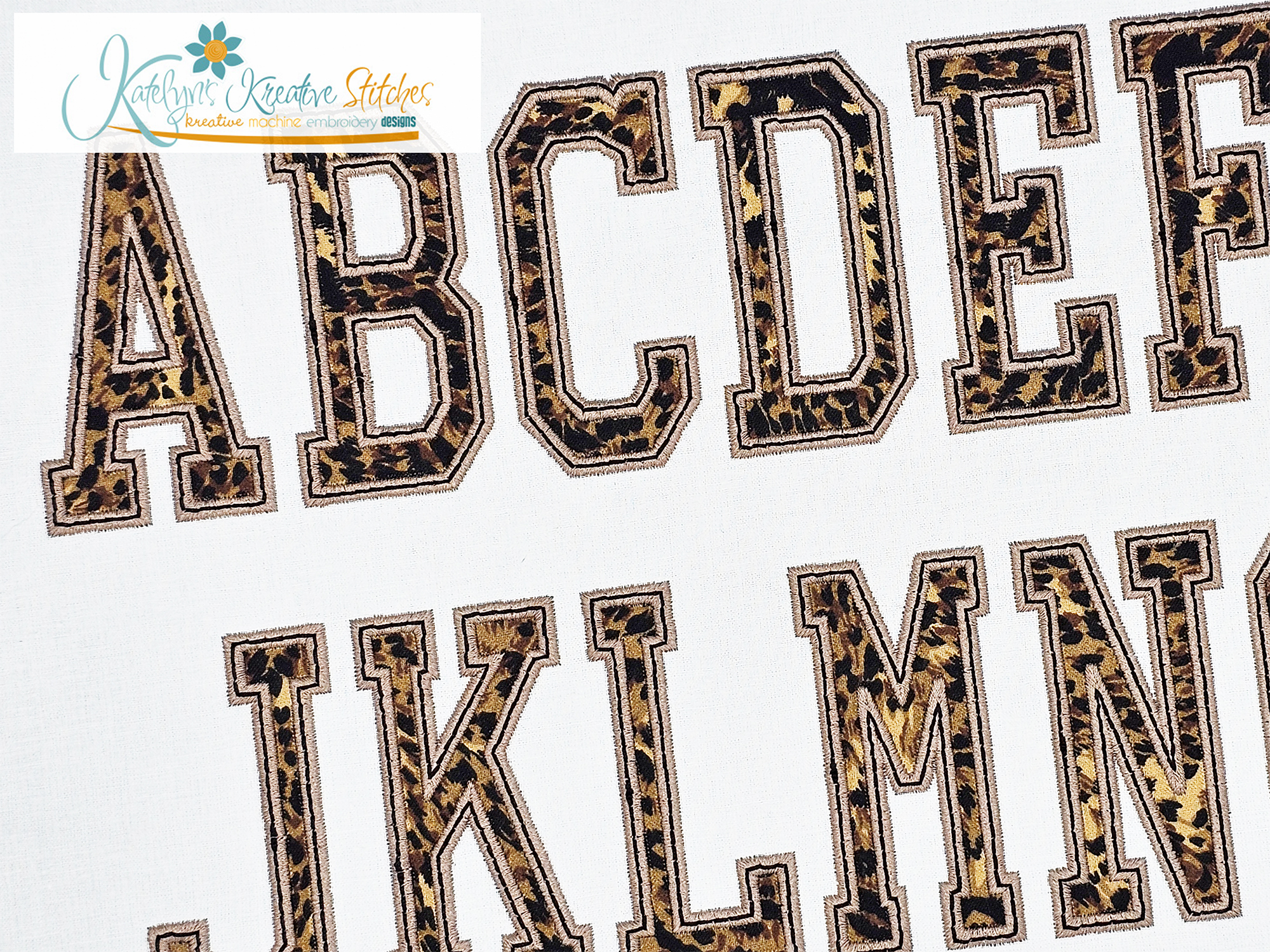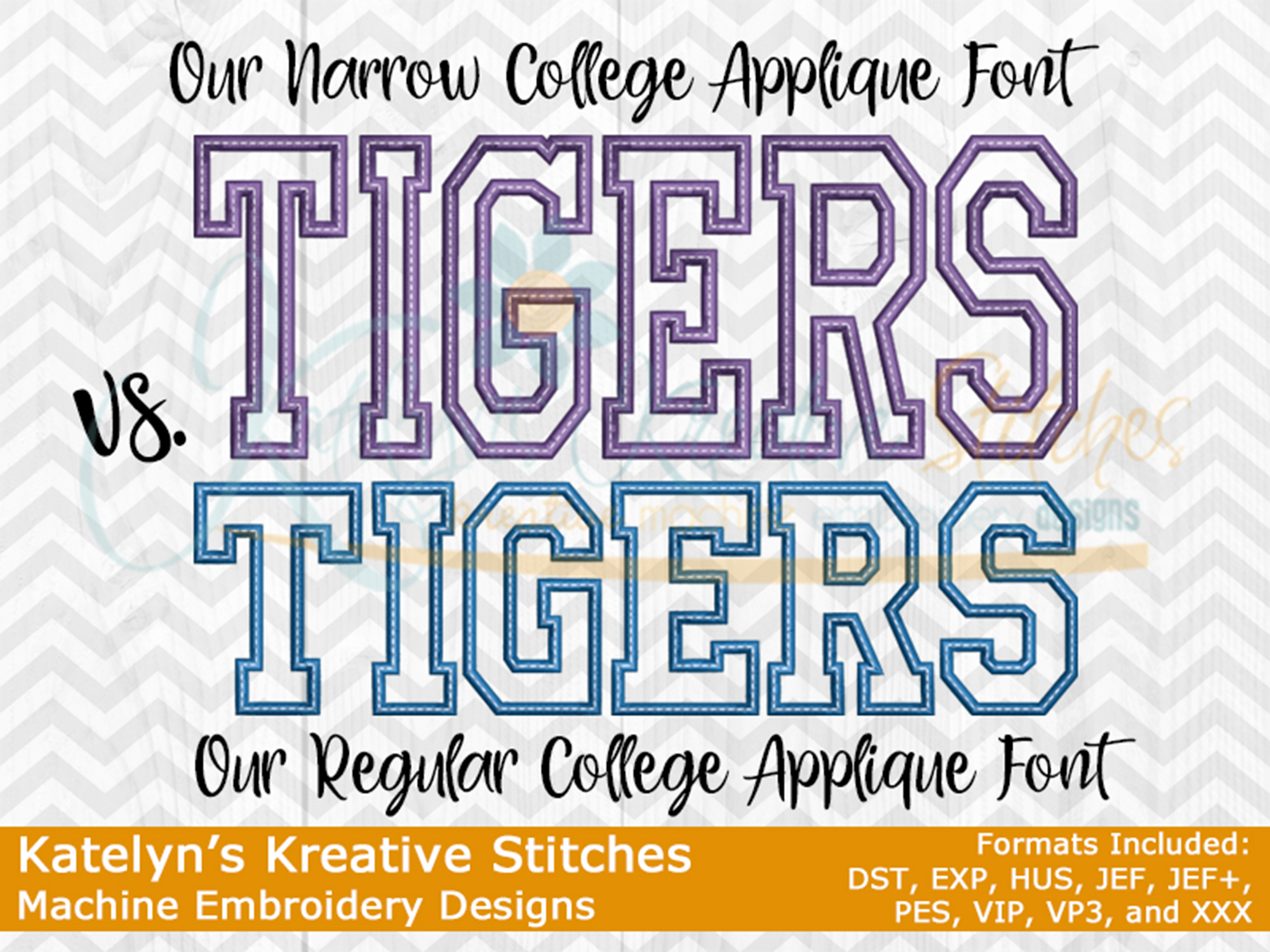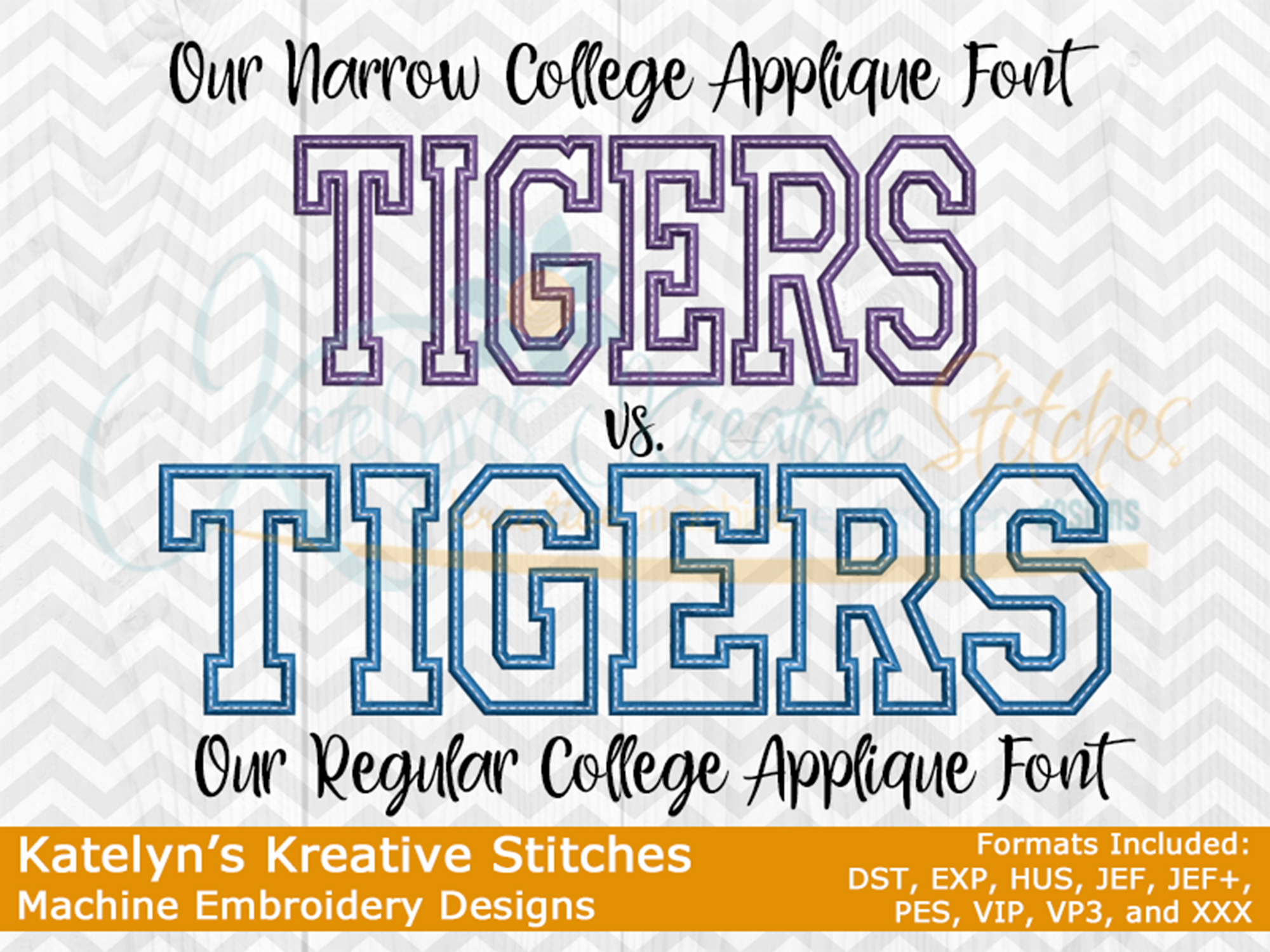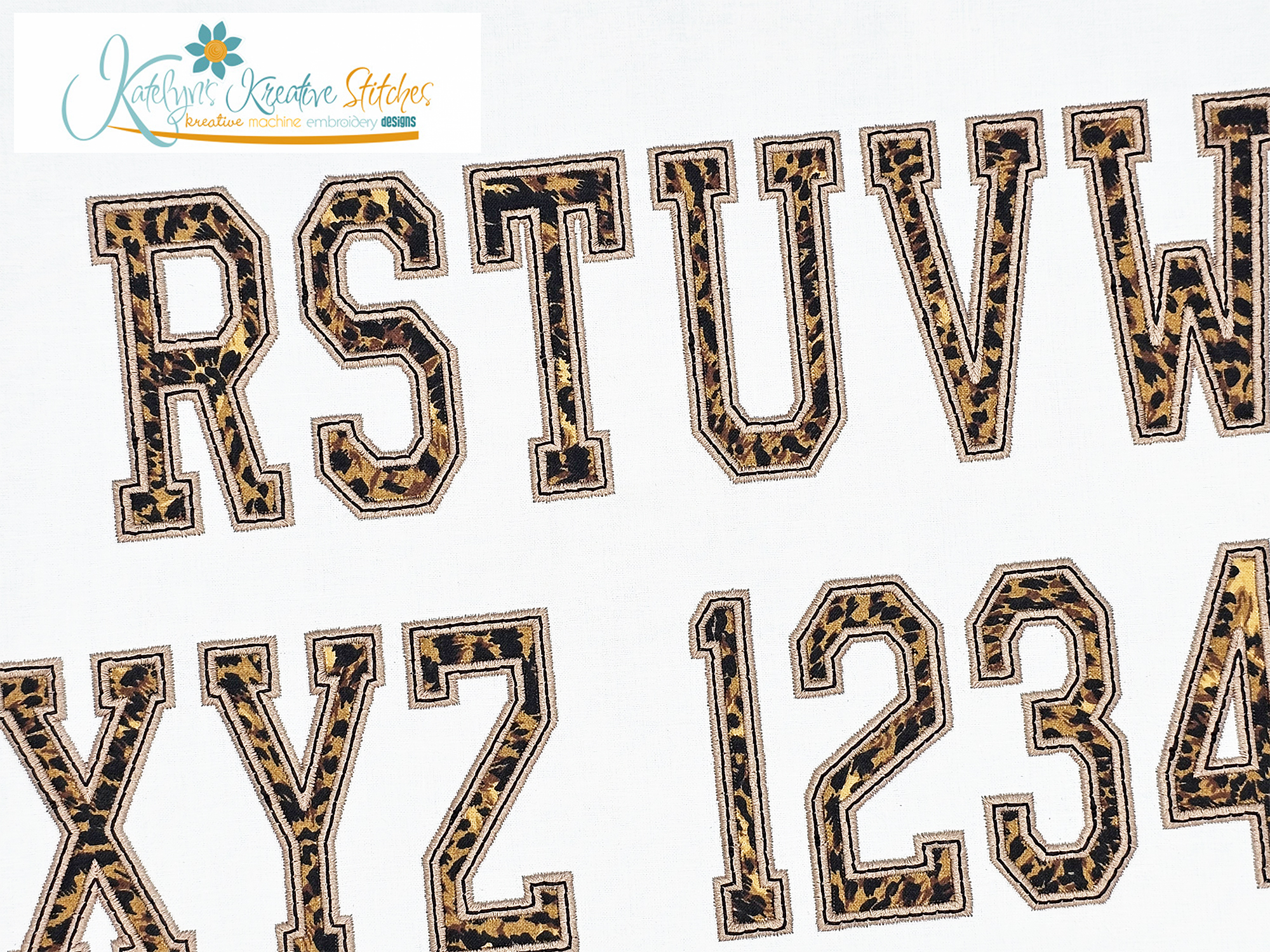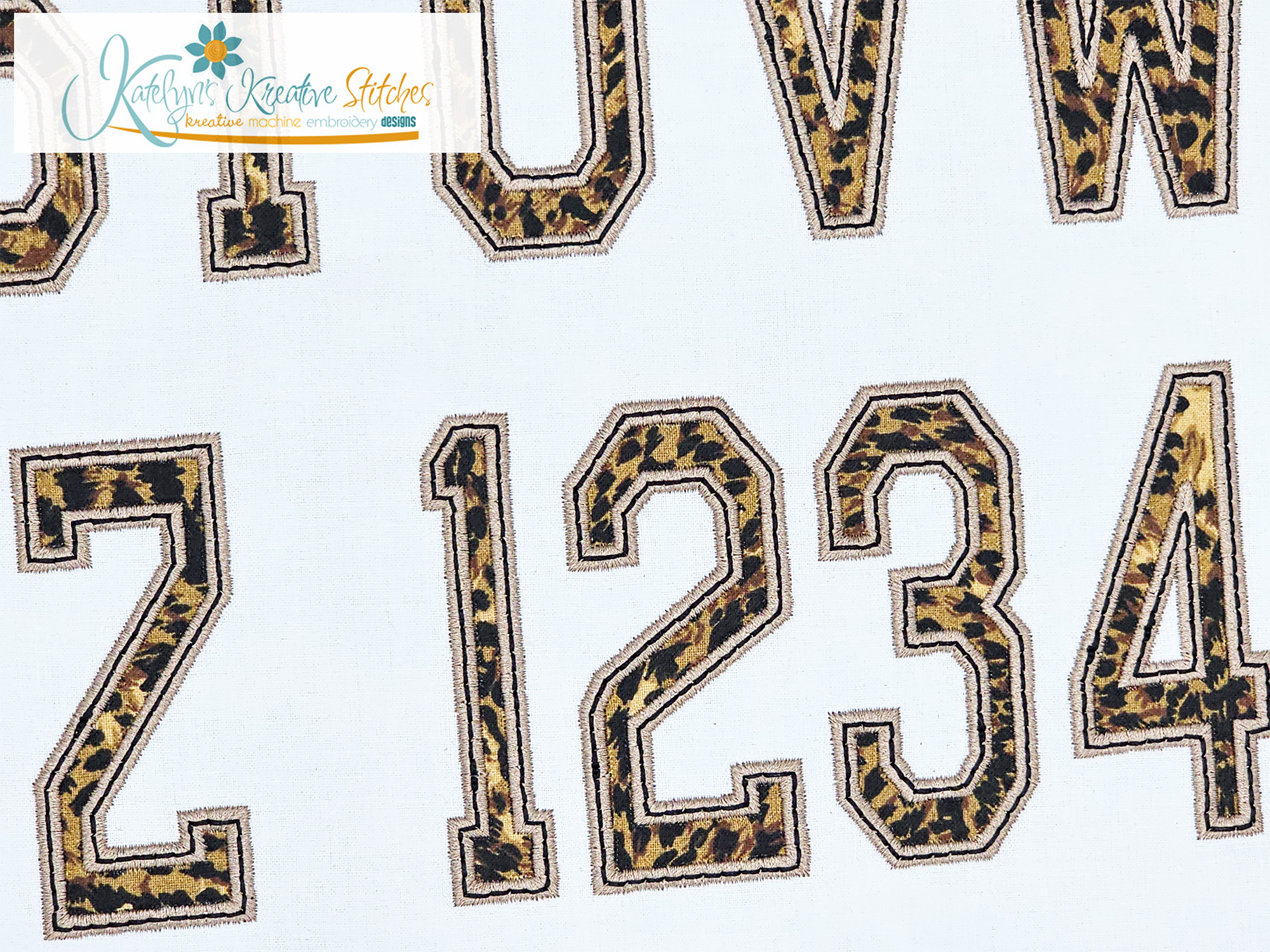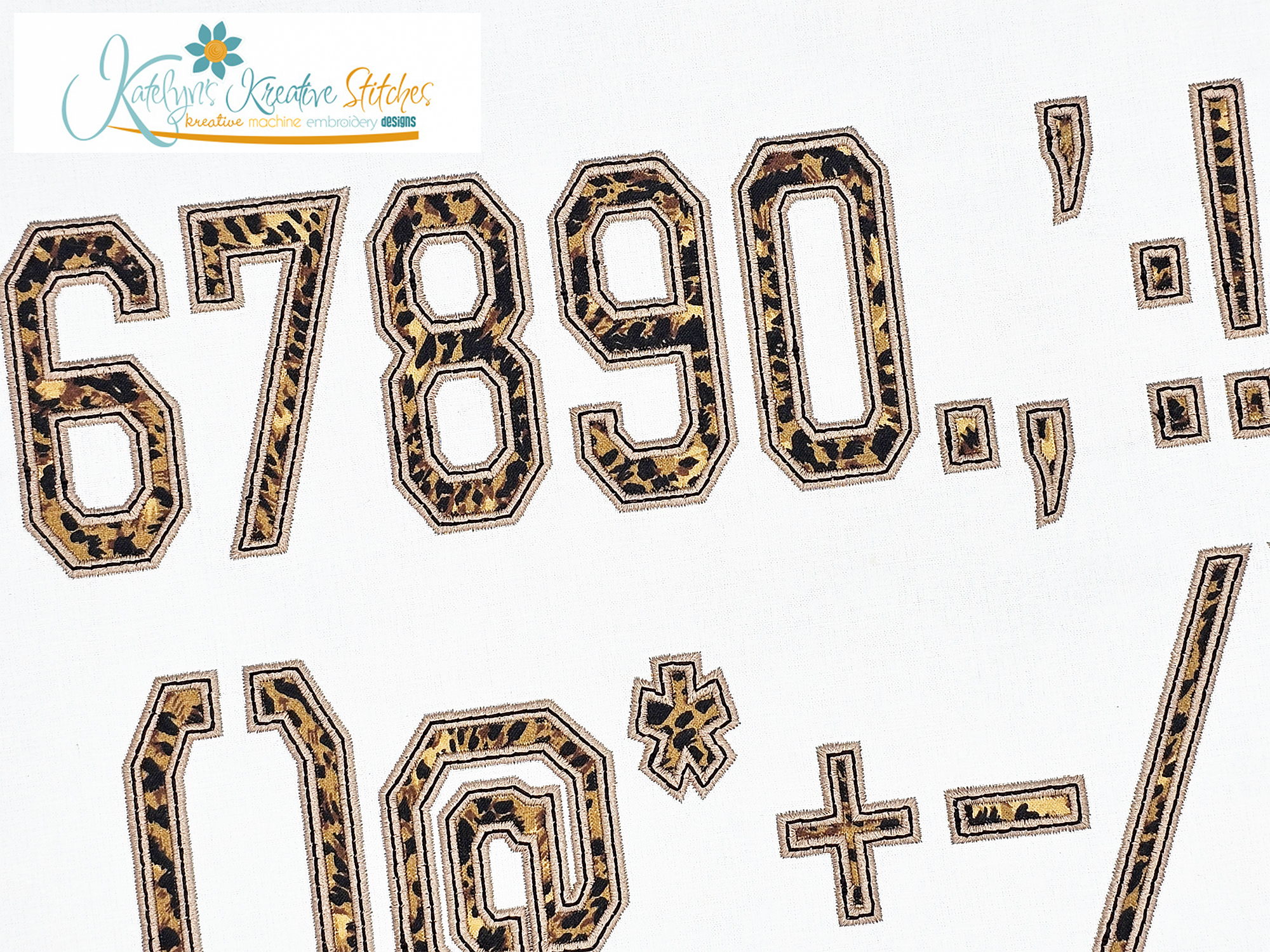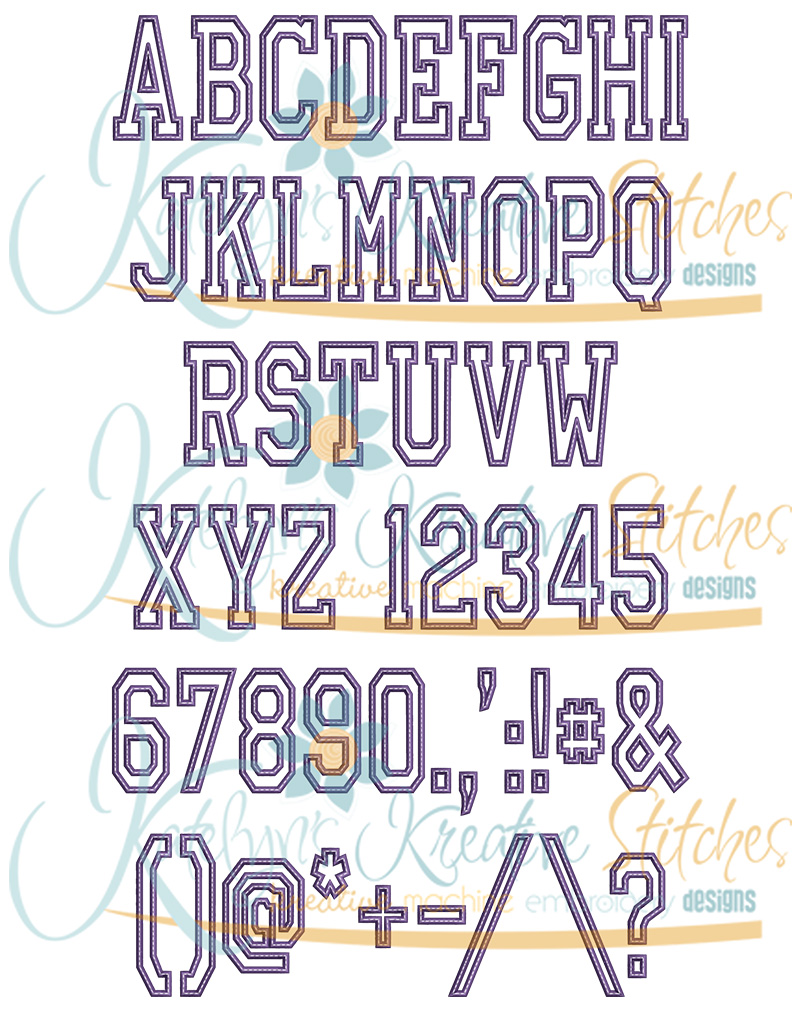
Narrow College Applique Font - 7 Sizes
Our Narrow College Applique Font is a great option if you're wanting your letters to be taller. It will include the 2, 3, 4, 5, 6, 7 and 8 inch sizes. Please keep in mind that our fonts are manually digitized in proportion with each other, so the sizes are approximate. You'll receive all the upper case letters along with the numbers and special characters. This applique font is done with a wide satin stitch and a optional triple stitch (or bean stitch) on the top. This font is a straight font, not a curved font. You'll need to merge the letters together using your own software.
This applique font is great for Sports Jersey's and Sweatshirts.